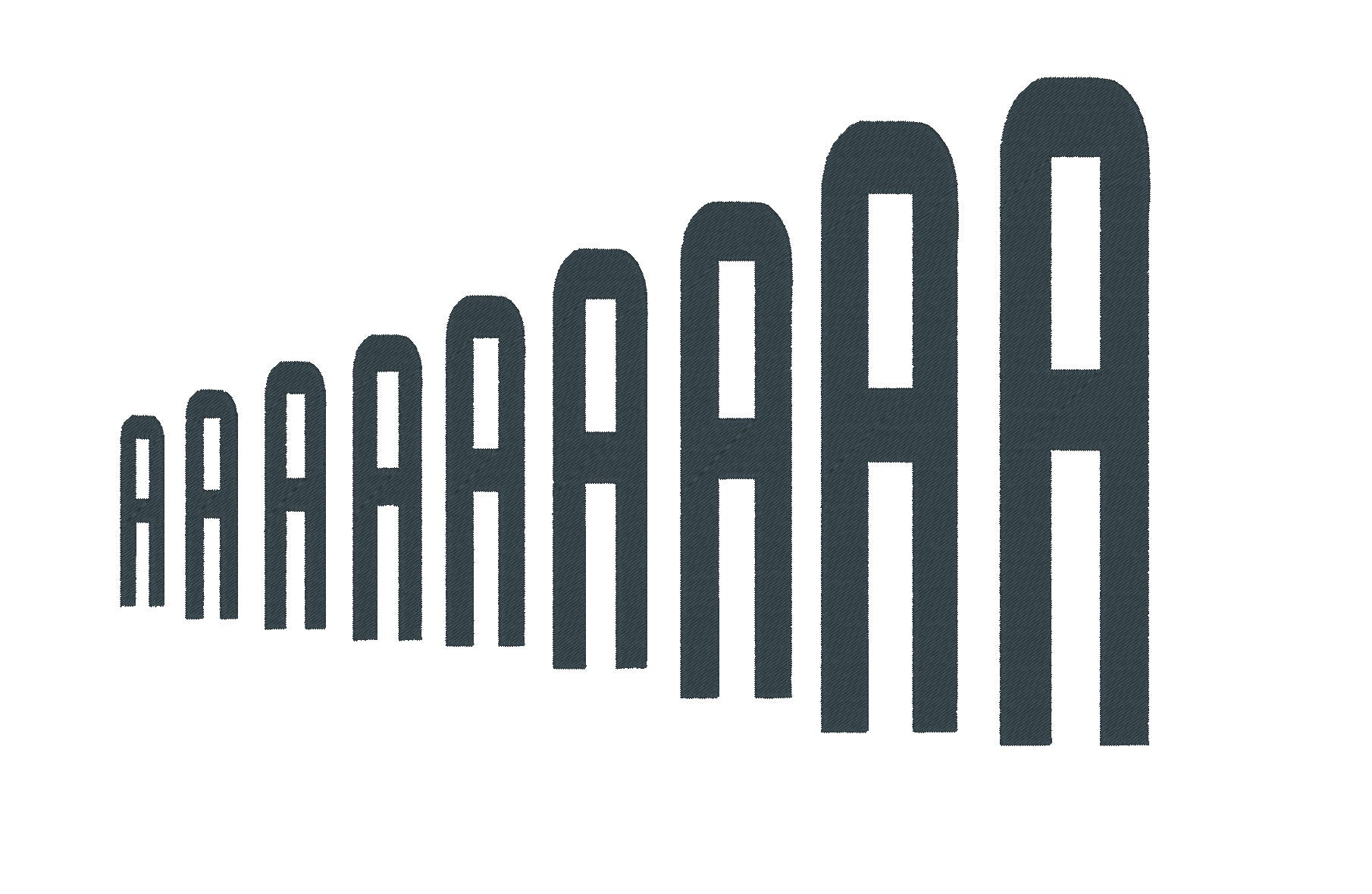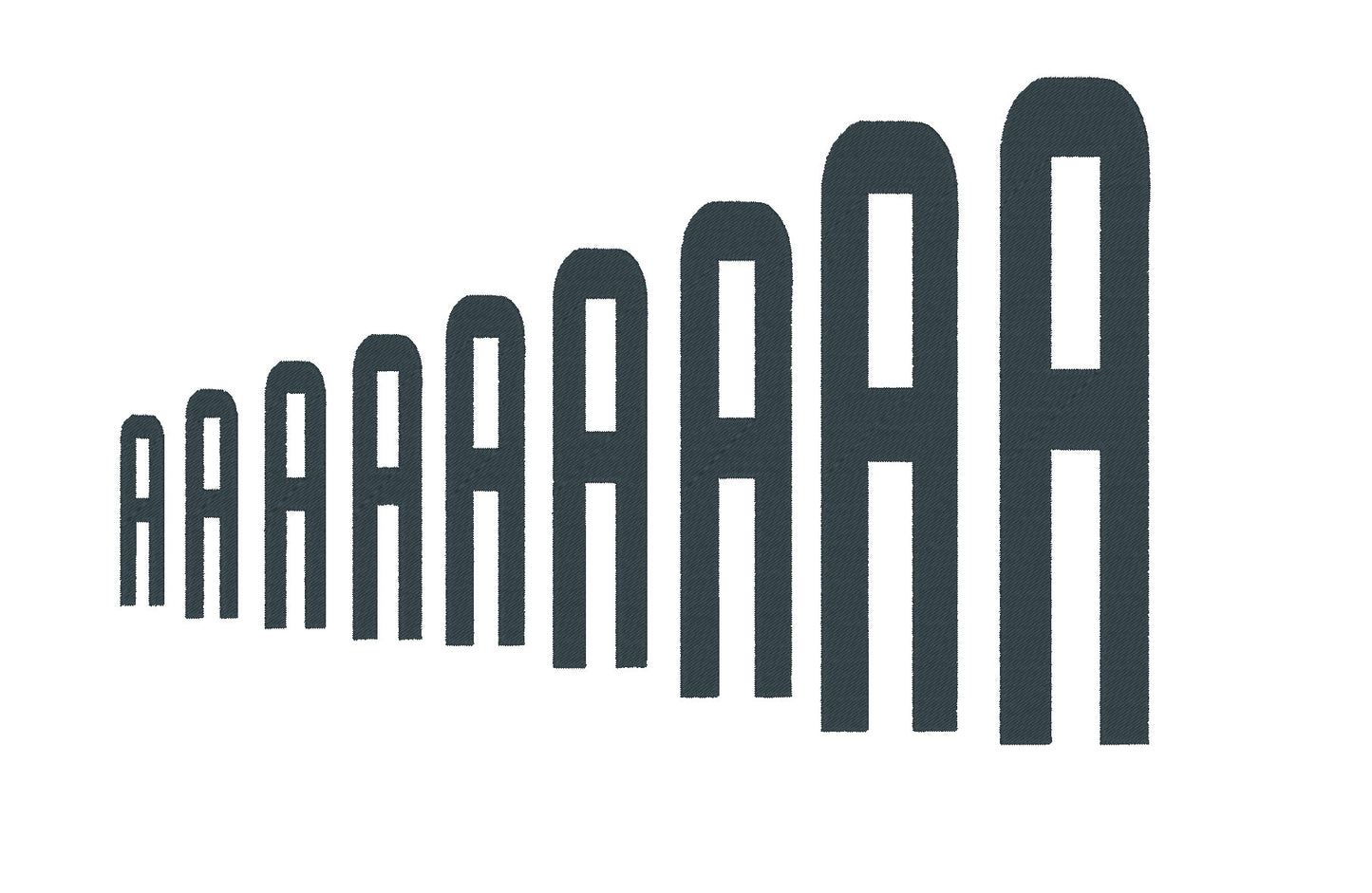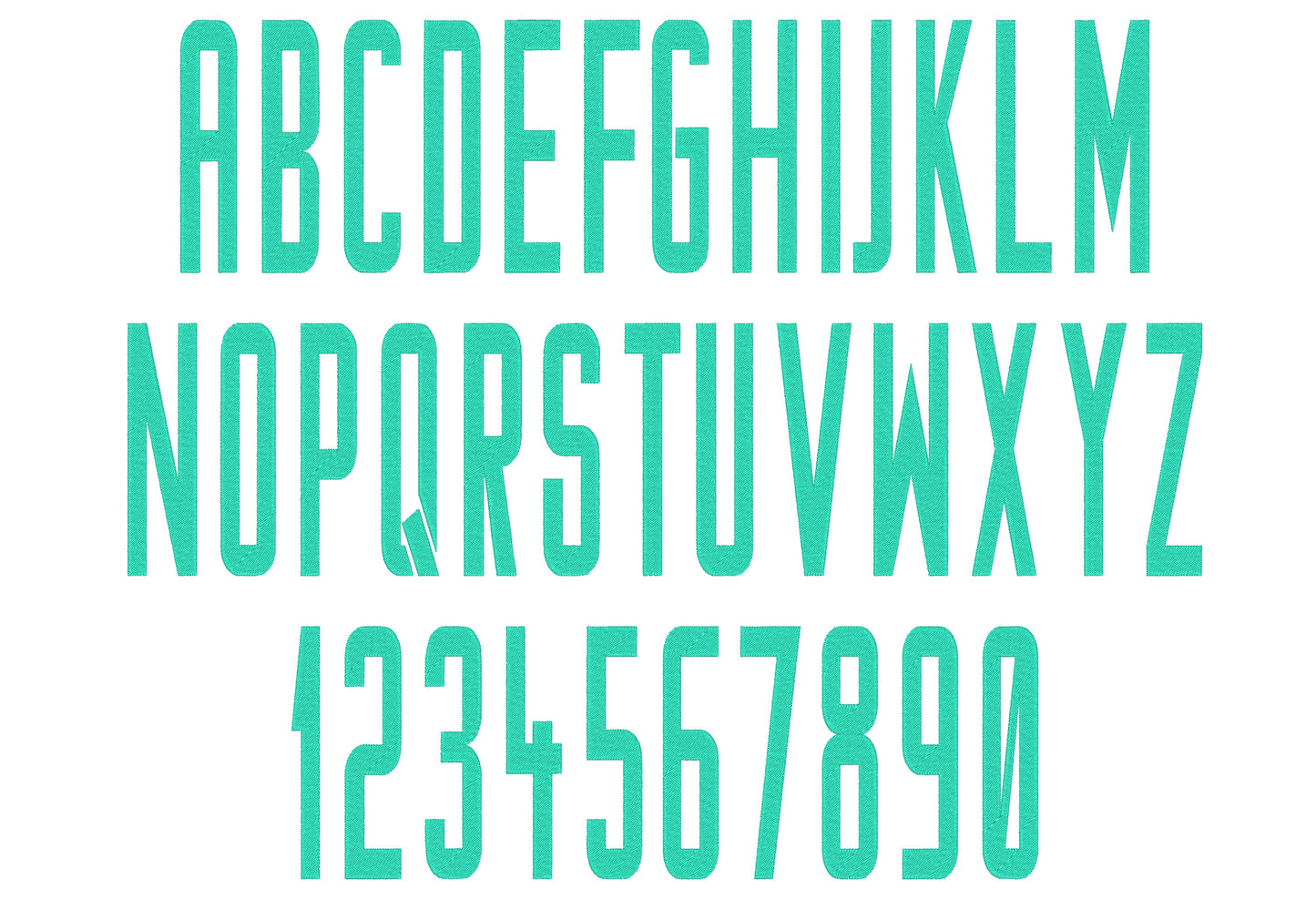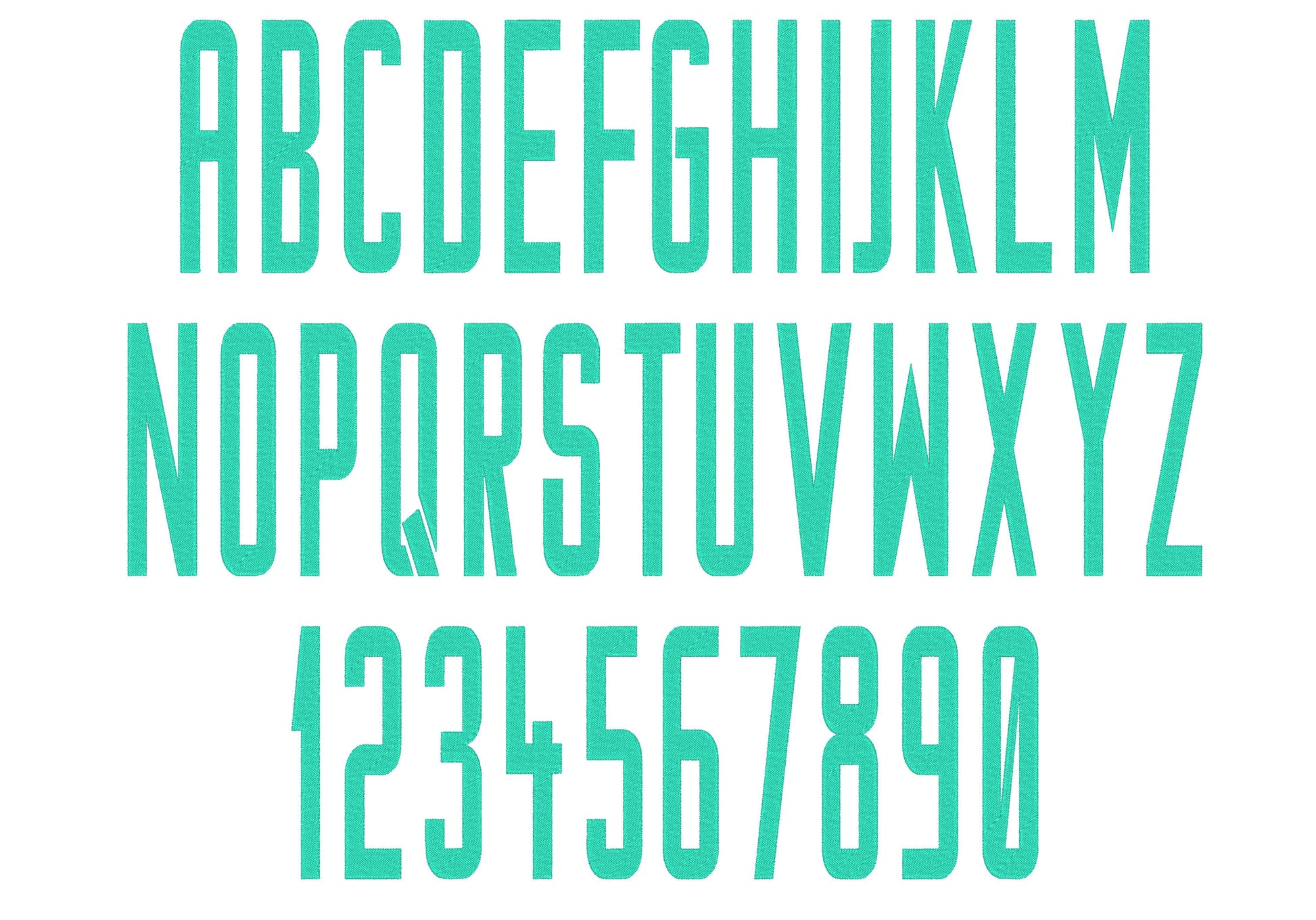
Or click to open the linkAn extra narrow block font in fill stitch. Great for tall lettering on sleeves, collars, caps and team shirts.
Uppercase letters A to Z and numbers 0 to 9. Nine heights: 2, 2.5, 2.7, 3, 3.5, 4, 5, 6 and 7 inches.